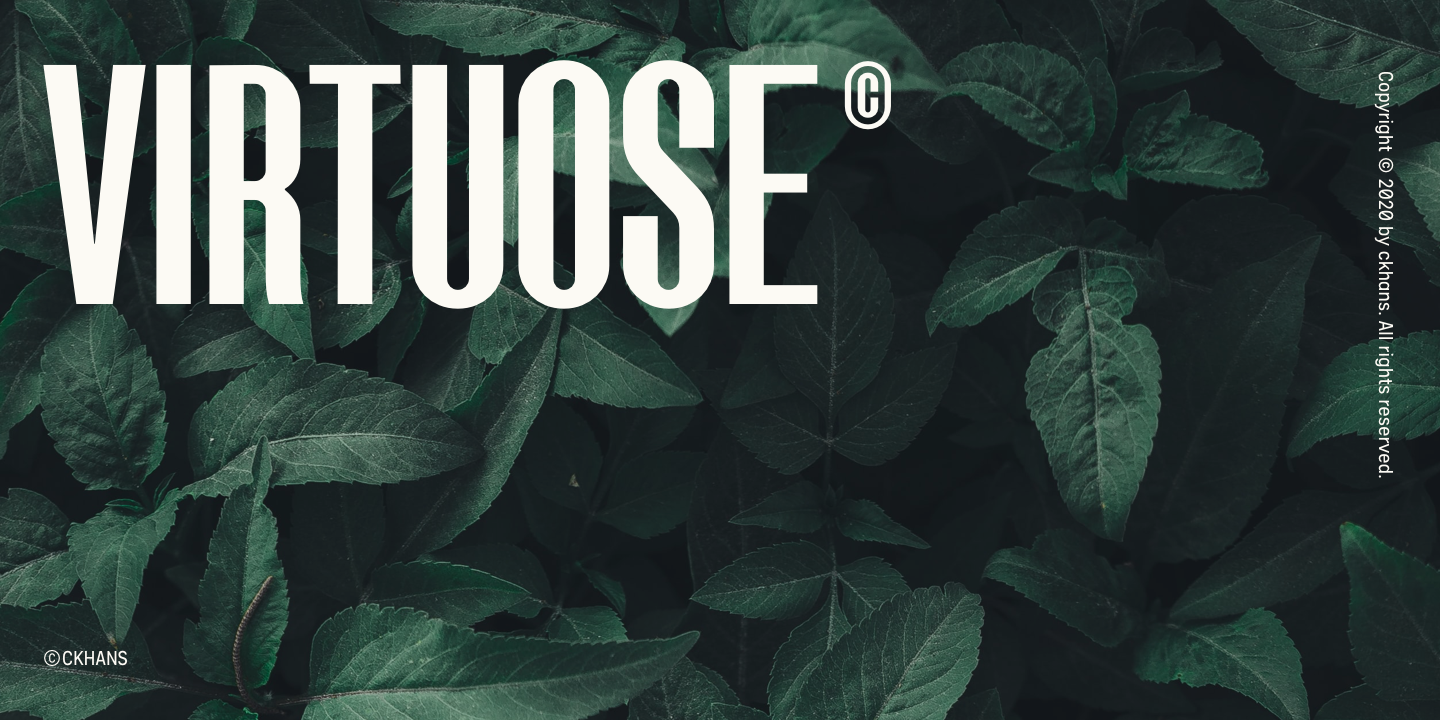
Virtuose Font is perfect for classical music concert programs, opera house branding, ballet performance posters, conservatory signage, musical instrument packaging, fine arts academy materials, symphony orchestra identities, and prestigious cultural institution graphics.
Virtuose Font is exciting because it embodies the artistic mastery and technical excellence of classical performance through its sophisticated character design that captures the refined elegance of virtuoso musicianship and the timeless beauty of artistic perfection. Its graceful proportions and cultural sophistication make it the perfect choice for brands that want to communicate artistic excellence, cultural refinement, and the transcendent power of masterful performance.
The Virtuose Font family includes multiple artistic variations: Virtuose Light, Virtuose Regular, Virtuose Medium, Virtuose Bold, Virtuose Italic, and Virtuose Ornamental, along with musical symbols and classical decorative elements, providing designers with comprehensive tools for creating sophisticated performing arts and cultural brand experiences.
When exploring classical typography solutions, Virtuose Font Free Download emerges as the premier choice for designers working on performing arts and cultural projects that require genuine artistic sophistication and classical refinement. This elegant typeface embodies the essence of musical virtuosity while offering the technical precision that contemporary performing arts organizations require. The font's artistic character and cultural authenticity create immediate connections with audiences who appreciate classical music and artistic excellence at the highest levels.
Cultural professionals consistently choose Virtuose Font for projects requiring authentic artistic sophistication and prestigious cultural appeal. Its expertly crafted letterforms feature classical influences that work exceptionally well in both intimate recital hall programs and grand opera house displays. The font's ability to convey artistic mastery and cultural prestige while maintaining perfect readability makes it invaluable for comprehensive brand identity systems in the classical music, performing arts, and cultural education sectors.
Whether you're developing conservatory identities, creating classical concert marketing materials, or designing prestigious arts festival promotions, Virtuose Font delivers the authentic artistic character and cultural appeal that resonates with audiences who appreciate the highest levels of musical and artistic achievement. Its classical heritage and sophisticated design ensure your projects honor artistic traditions while maintaining contemporary professional standards that attract discerning arts patrons and cultural connoisseurs.